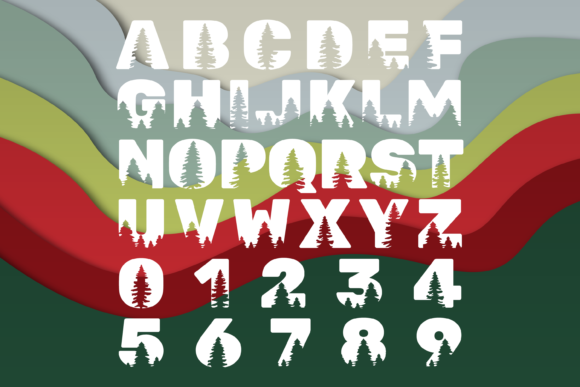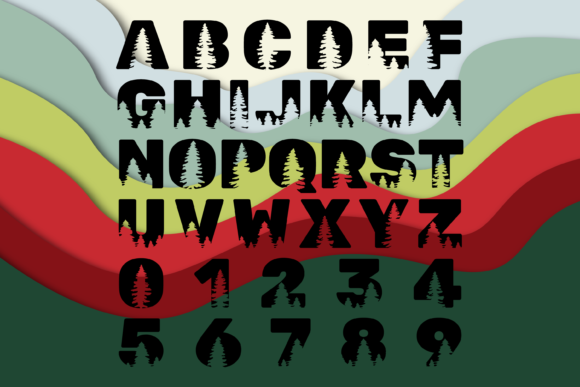
Deck the Halls with Typography: The Magic of Christmas Tree Font
Have you ever found yourself staring at a blank canvas, waiting for inspiration to strike? For designers, those moments can be a thrilling challenge. It’s like waiting for a snowflake to fall – you never know when it’s going to land and bring your creation to life. For me, that moment came when I stumbled upon the Christmas Tree Font. Its unique blend of whimsy and elegance immediately captured my attention.
The Christmas Tree Font is a decorative font that adds a touch of magic to any design. Whether you’re creating cartoon characters, children’s games, or just a festive holiday card, this font is sure to bring a smile to your face. As a designer, you know how valuable it is to have the right tools at your disposal – and the Christmas Tree Font is definitely one to add to your toolkit.
- Unique Characteristic: The Christmas Tree Font features a distinctive, hand-drawn design with intricate details and ornaments, evoking a festive atmosphere.
Christmas Tree Font Review
Overall, I’m quite impressed with the Christmas Tree Font. Here are some things that I think work well: ✨
- Unique aesthetic: The font has a distinct, festive feel that’s perfect for holiday projects.
- Customizable: The font comes in various weights, making it easy to adjust to your design needs.
- Supports special characters: This is a nice touch, especially if you’re working with languages that use special characters.
However, there are some limitations to consider: ⚠️
- Limited language support: While the font supports some special characters, it may not be suitable for projects that require extensive language support.
- Not ideal for small text: The font’s unique aesthetic can be lost in small text sizes, making it less effective for body text.
Overall, I think the Christmas Tree Font is a great choice for holiday projects, especially if you’re looking for a unique aesthetic. However, it may not be the best choice for more extensive projects that require language support or small text sizes.
Use the Christmas Tree Font to add a festive touch to your designs, such as:
- Christmas cards and invitations
- Holiday social media graphics
- Party decorations and signage
The Christmas Tree Font is ideal for projects that require a playful and festive touch, such as:
- Christmas marketing campaigns
- Holiday events and parties
- New Year’s Eve celebrations
Alternatives to Christmas Tree Font
Rockwell
Rockwell is a serif font that is often used for body text and titles. It is a classic and timeless choice that works well in formal and professional settings. Rockwell is similar to Christmas Tree Font in that it has a traditional feel, but it lacks the festive and playful vibe of the Christmas Tree Font. Use Rockwell when you want a straightforward, easy-to-read font that won’t distract from the content.
Copperplate
Copperplate is a elegant and refined serif font that is often used for invitations and formal documents. It has a more sophisticated feel than Christmas Tree Font and is better suited for high-end or luxury brands. Copperplate is more ornate than Christmas Tree Font, with intricate details and flourishes. Use Copperplate when you want to add a touch of sophistication and elegance to your design.
Q: Can I customize Christmas Tree Font, or is it a fixed design?
Christmas Tree Font is a fixed design, but you can customize its appearance by adjusting the font size, color, and style in your design software. You can also experiment with different font combinations and layering techniques to create unique and creative designs. However, you cannot modify the underlying design of the font itself.